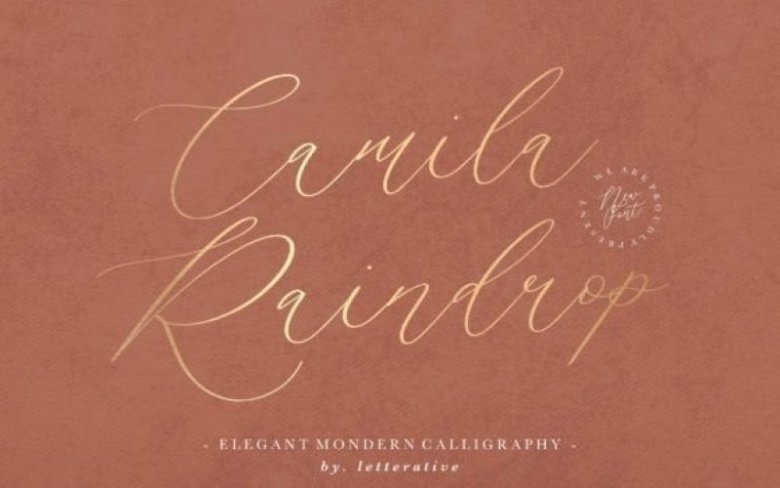
Camila Raindrop Script Font
Introducing Camila Raindrop Script Font. A handwritten script. It’s an exciting handwritten font with signature style. Fall in love with its elegantly playful nature! Add this font to your creative ideas and notice how it will make them stand out! This font perfectly made to be applied especially in logo, and the other various formal forms such as invitations, labels, logos, magazines, books, greeting / wedding cards, packaging, fashion, make up, stationery, novels, labels or any type of advertising purpose.